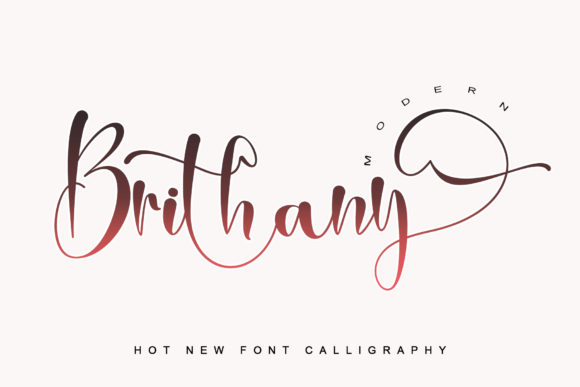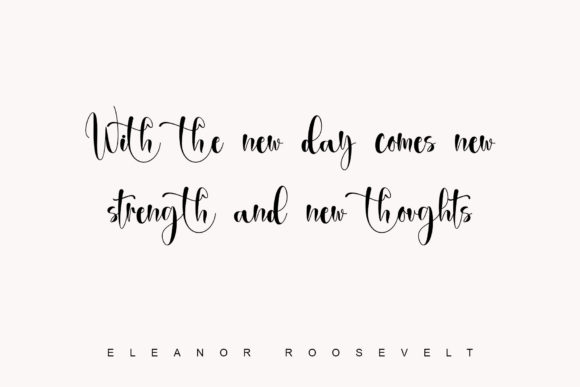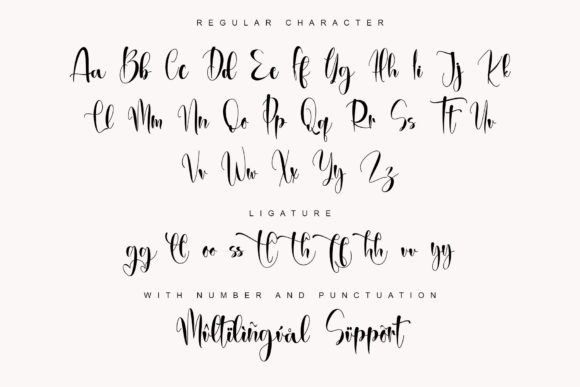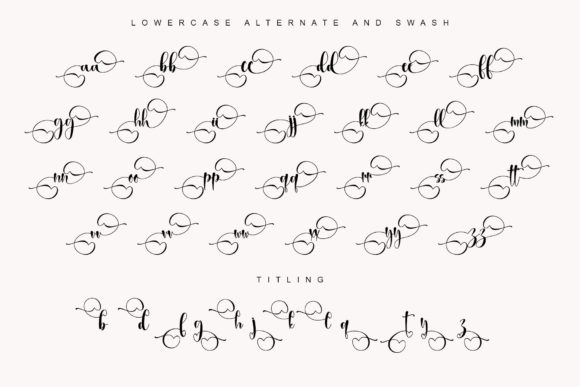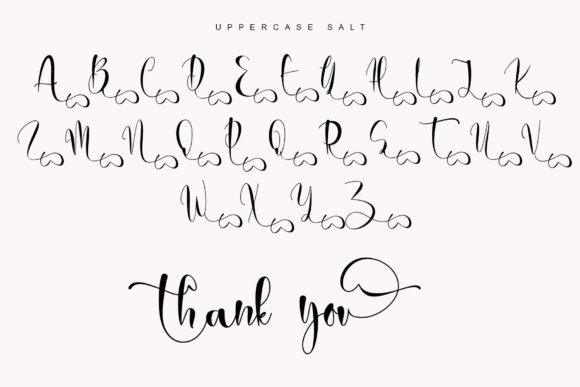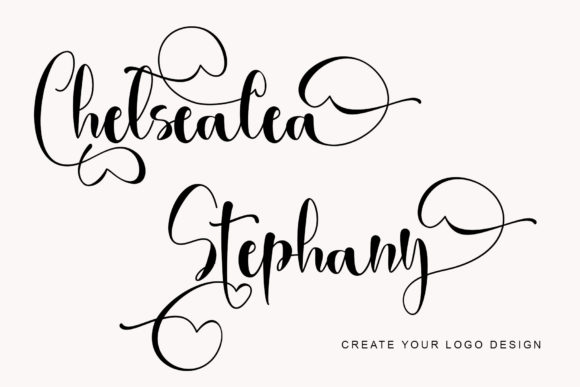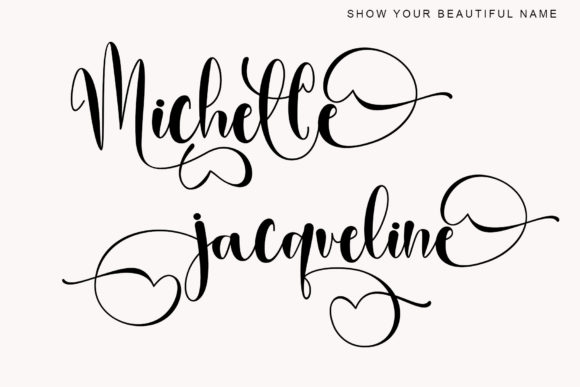
About Brithany Font
Brithany is a stylish font that incredibly exudes elegance and class. It looks stunning for Logo, thank you cards, quotes, greeting cards, business cards, wedding invitations, and every other design which needs a handwritten touch. Brithany Modern comes with alternate, titling, swashes, and ligatures for fully customizable designs. This font is PUA encoded which means you can access all of the glyphs and swashes with ease!